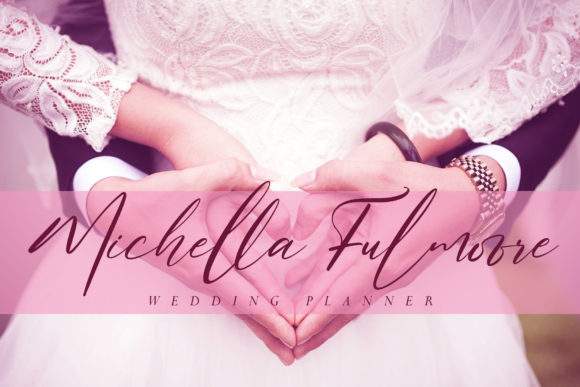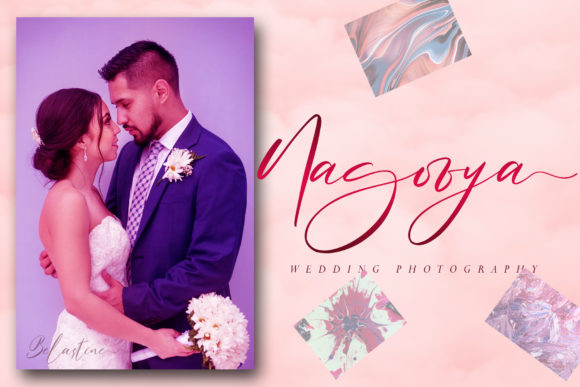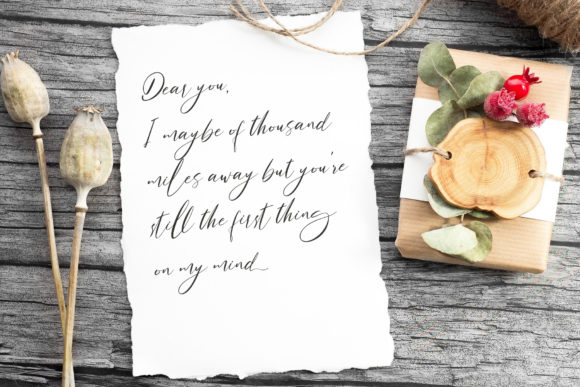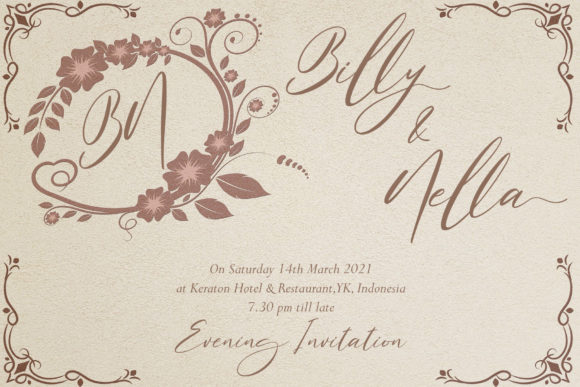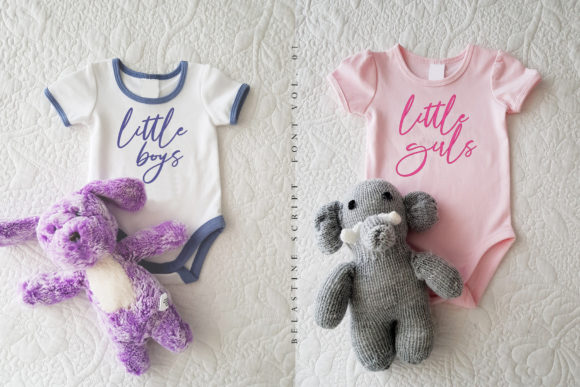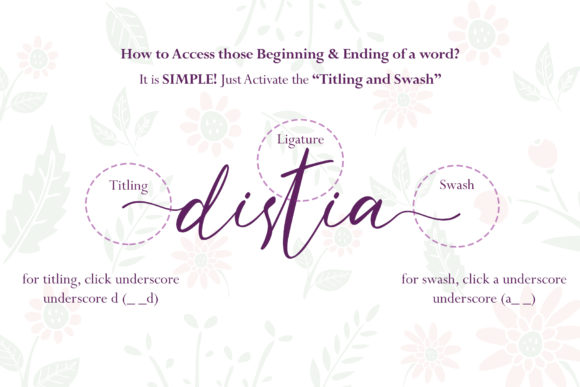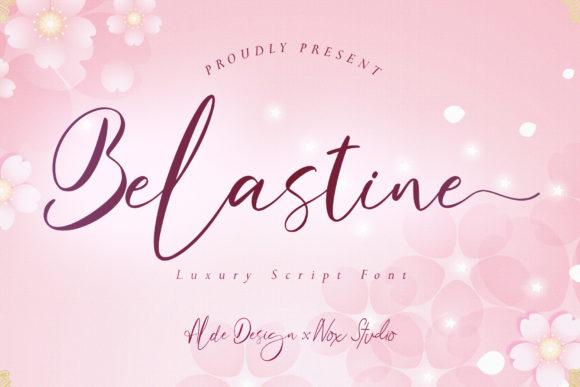
Introducing Belastine Font: Elevate Your Designs with Elegance and Sophistication
In the world of typography, a font can make or break a design. For those seeking a touch of elegance and refinement, Belastine Font is an exquisite choice. This stylish and sophisticated handwritten font is perfect for creating stunning designs that require a personalized touch. Whether you’re working on wedding invitations, thank you cards, greeting cards, logos, or any other project that demands a unique flair, Belastine Font is sure to impress.
What Makes Belastine Font Special?
Belastine Font stands out from the crowd with its beautiful, flowing script. Its refined and elegant appearance makes it an ideal choice for designs that require a high level of sophistication. The font’s versatility allows it to be used across various design projects, from romantic wedding invitations to stylish logos and everything in between.
Key Features of Belastine Font
- PUA Encoding: Belastine Font is PUA (Private Use Area) encoded, which means you can easily access all the glyphs and swashes. This feature allows for greater flexibility and creativity in your designs, enabling you to experiment with different styles and combinations.
- Handwritten Style: The font boasts a beautiful, handwritten appearance that adds a personal touch to any design. Its elegant strokes and refined letterforms make it perfect for creating sophisticated and eye-catching designs.
- Wide Range of Applications: Belastine Font is suitable for various design projects, including:
- Wedding invitations and wedding cards
- Thank you cards and greeting cards
- Product packaging and labels
Why Choose Belastine Font?
With so many fonts available, why choose Belastine Font for your designs? Here are a few compelling reasons:
- Unique and Distinctive: Belastine Font offers a unique and distinctive style that sets it apart from more traditional fonts. Its elegant appearance ensures your designs will stand out and leave a lasting impression.
- Ease of Use: The font’s PUA encoding makes it easy to access and use the various glyphs and swashes, allowing you to focus on creating stunning designs rather than struggling with complicated font mechanics.
- High-Quality Design: Belastine Font is crafted with attention to detail, ensuring a high-quality appearance in any design. Its refined letterforms and elegant strokes make it perfect for professional-grade designs.
Tips for Using Belastine Font Effectively
To get the most out of Belastine Font, consider the following tips:
- Pair with Complementary Fonts: Combine Belastine Font with complementary fonts to create visual interest and add depth to your designs.
- Experiment with Swashes: Take advantage of the font’s PUA encoding to experiment with different swashes and glyphs, adding a unique touch to your designs.
- Use for Headlines and Titles: Belastine Font is perfect for headlines and titles, where its elegant appearance can make a significant impact.
Belastine Font is a stylish and refined handwritten font that offers a unique and sophisticated touch to various design projects. Its PUA encoding, elegant appearance, and versatility make it an excellent choice for designers and crafters seeking to create stunning designs. Whether you’re working on wedding invitations, logos, or any other project, Belastine Font is sure to elevate your designs to the next level.